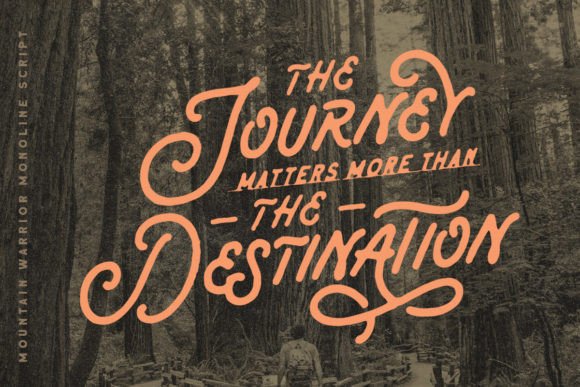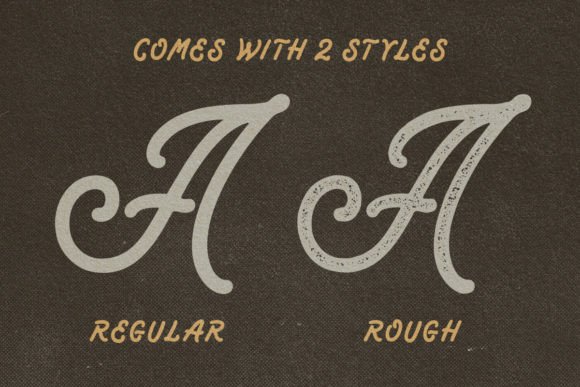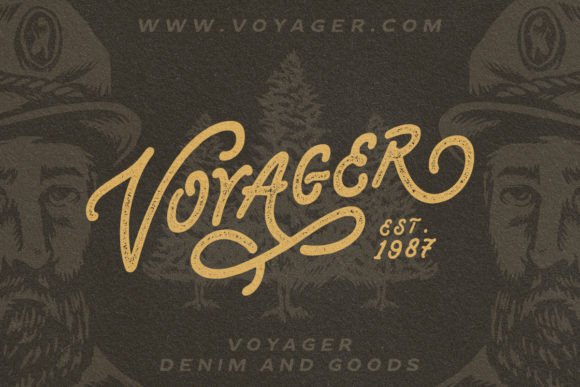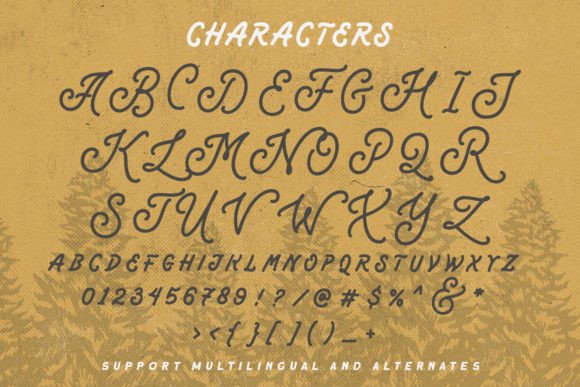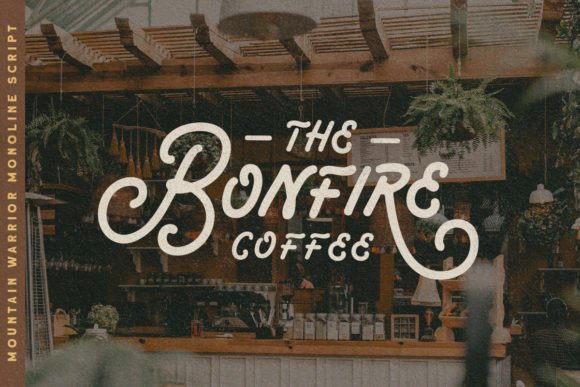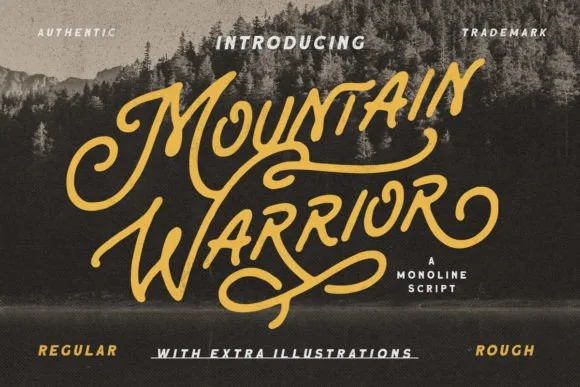
Mountain Warrior Font
About Mountain Warrior Font
“Mountain Warrior” is more than just a font; it’s a monoline script with a retro look and feel that adds a touch of luxury and nostalgia to your design projects. Crafted to evoke a sense of vintage charm, this font is a versatile choice for creating designs that stand out with a hint of both opulence and reminiscence. With its PUA encoding, accessing the amazing glyphs and ligatures becomes a seamless experience, enhancing the font’s flexibility and richness.
The monoline script of “Mountain Warrior” captures the essence of a bygone era, bringing a nostalgic touch to your designs. Its retro aesthetic is well-suited for a range of applications, from branding and logos to packaging and promotional materials. Each character is carefully designed to maintain a consistent and luxurious visual appeal.
The retro look and feel of “Mountain Warrior” become a design asset in itself, transforming your projects into pieces that exude both sophistication and a sense of history. Picture this font on labels for premium products, where it imparts a touch of vintage elegance. Envision it in logos, contributing to a brand identity that stands out with a unique blend of luxury and nostalgia.
Whether used in print or digital media, “Mountain Warrior” has the ability to elevate your designs to a new level of aesthetic richness. It’s more than just a font; it’s a design tool that brings a luxurious and nostalgic accent to your creative endeavors.
In summary, “Mountain Warrior” is a font that combines the elegance of a monoline script with a retro aesthetic, creating a timeless and versatile typeface. Its PUA encoding ensures easy access to a range of glyphs and ligatures, adding a layer of richness to your designs. Let “Mountain Warrior” be the font that infuses your projects with a touch of both luxury and nostalgia, making them truly exceptional.